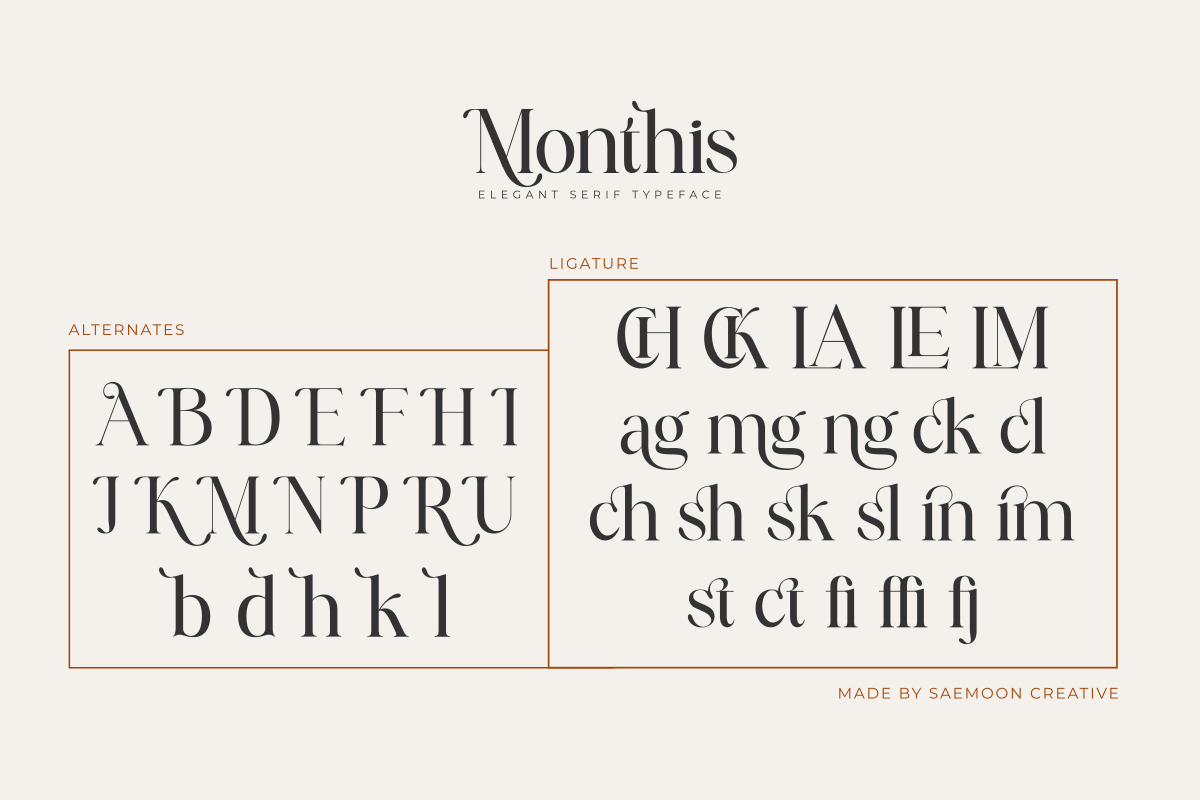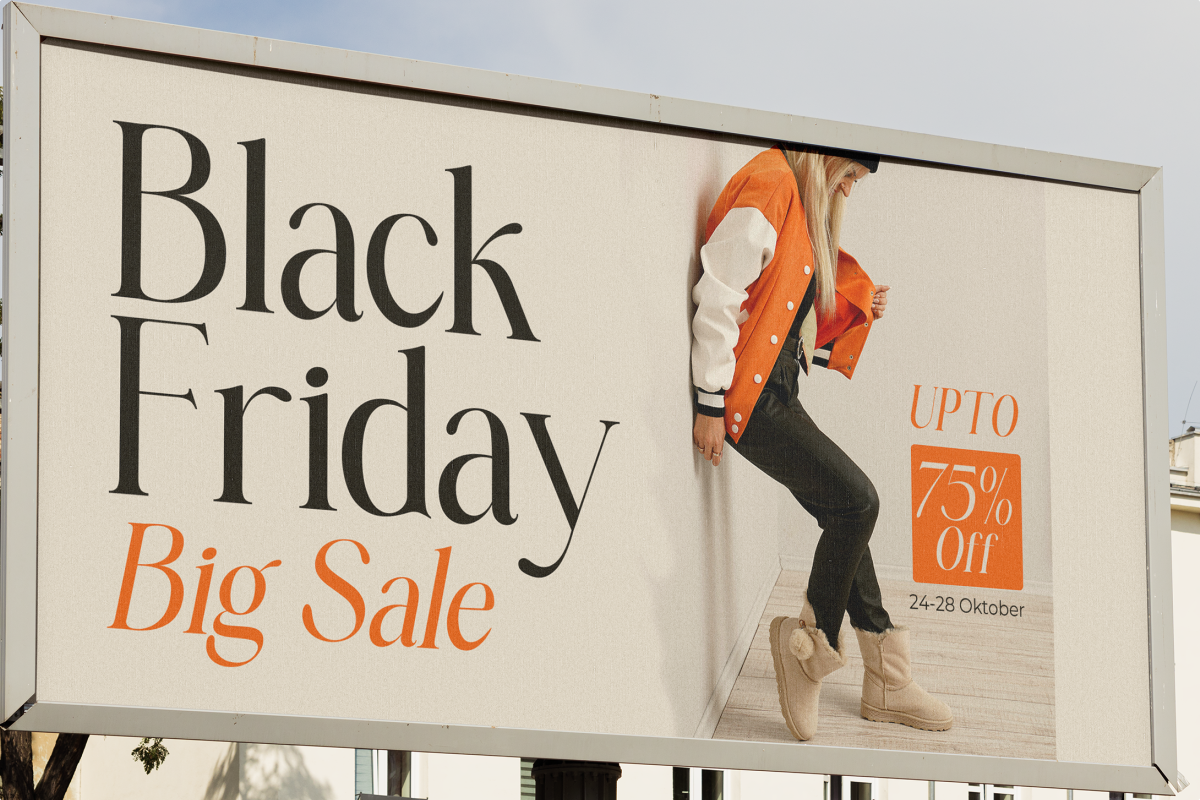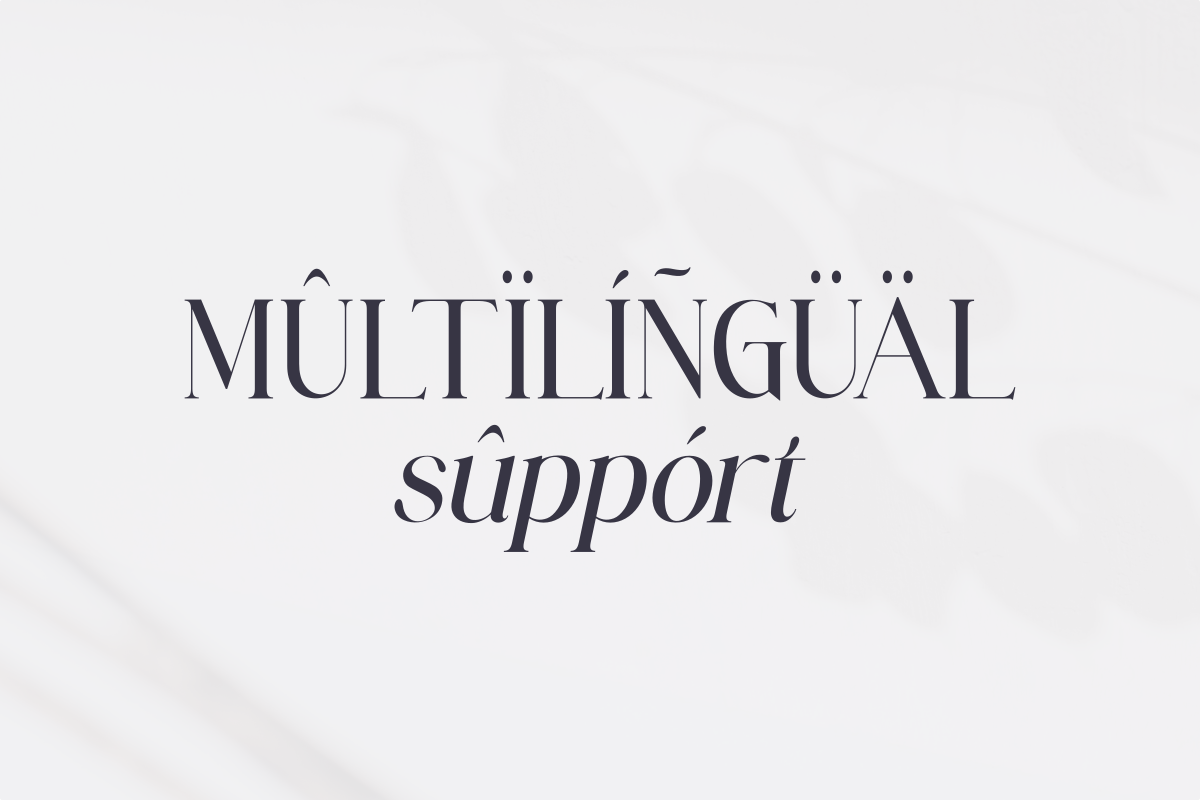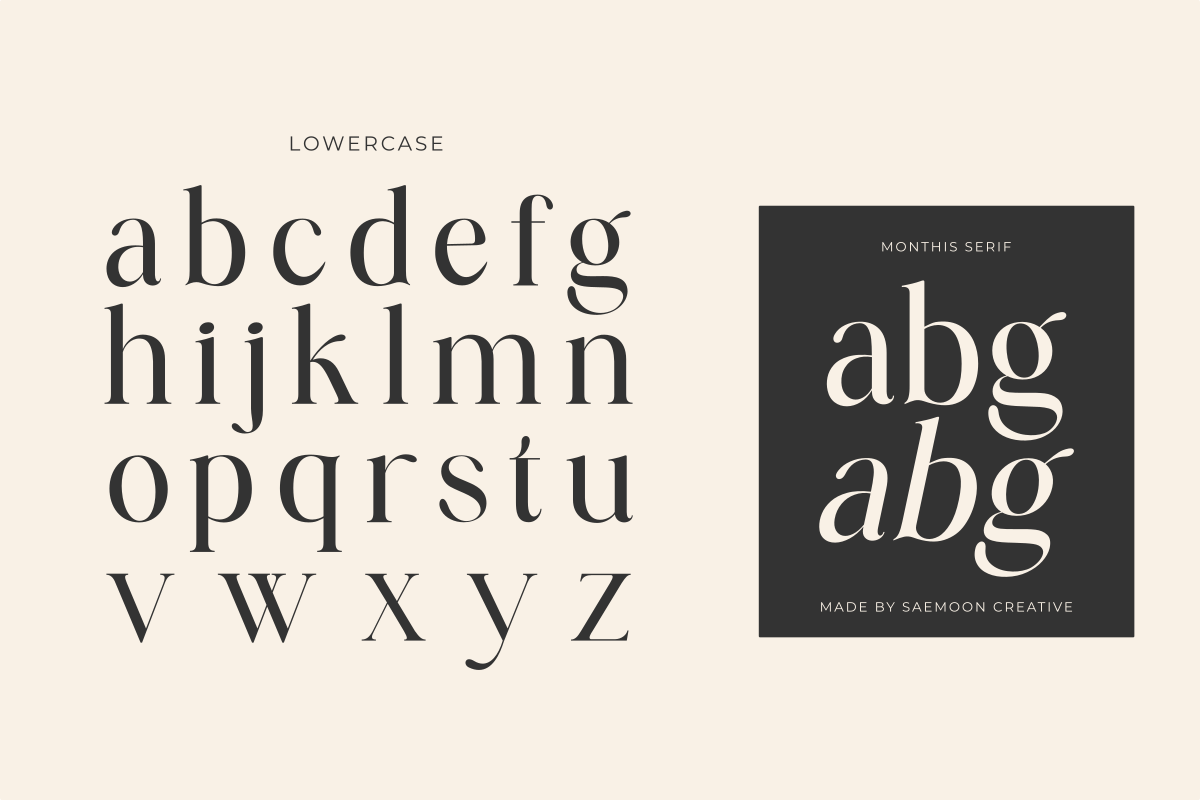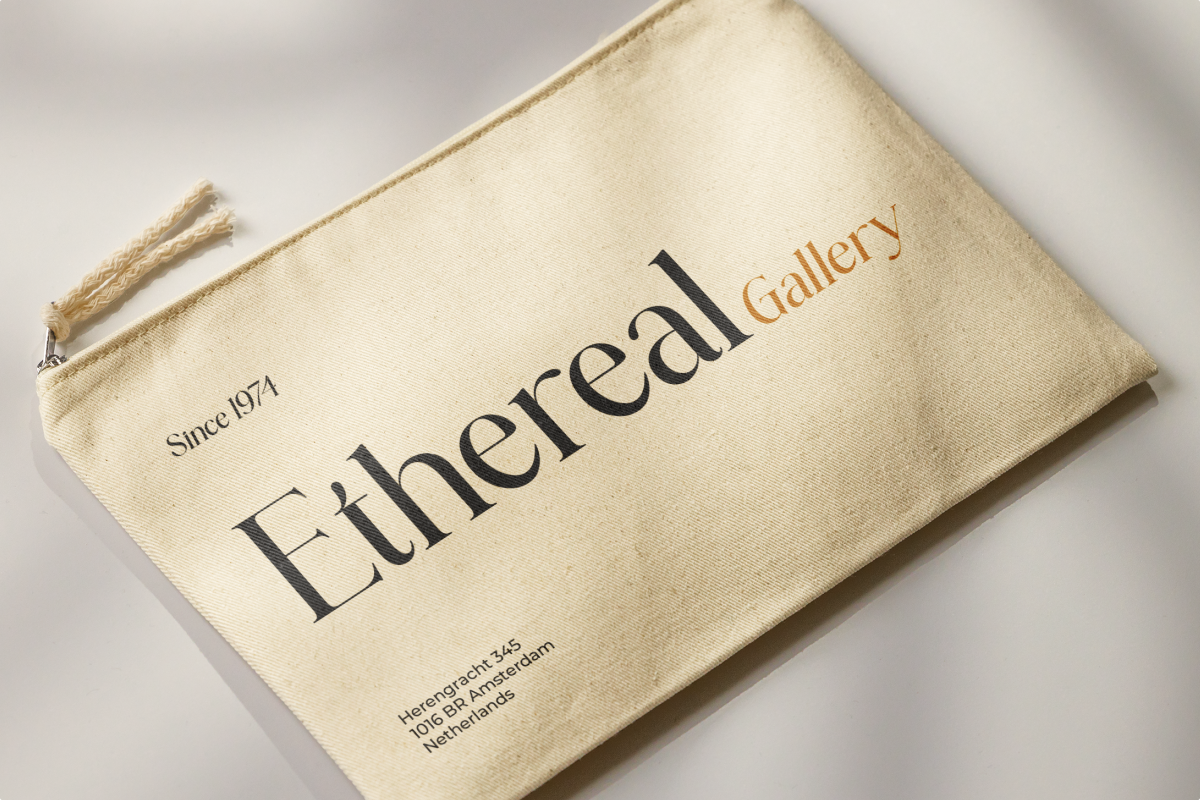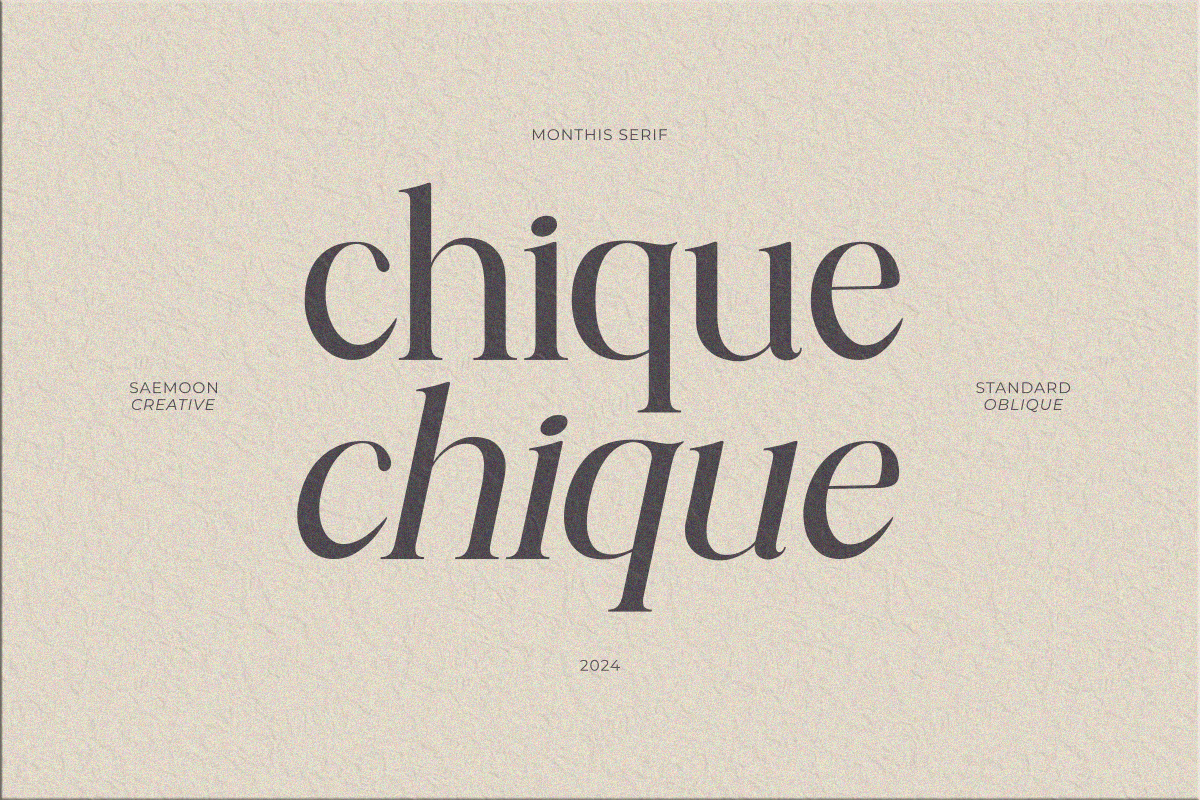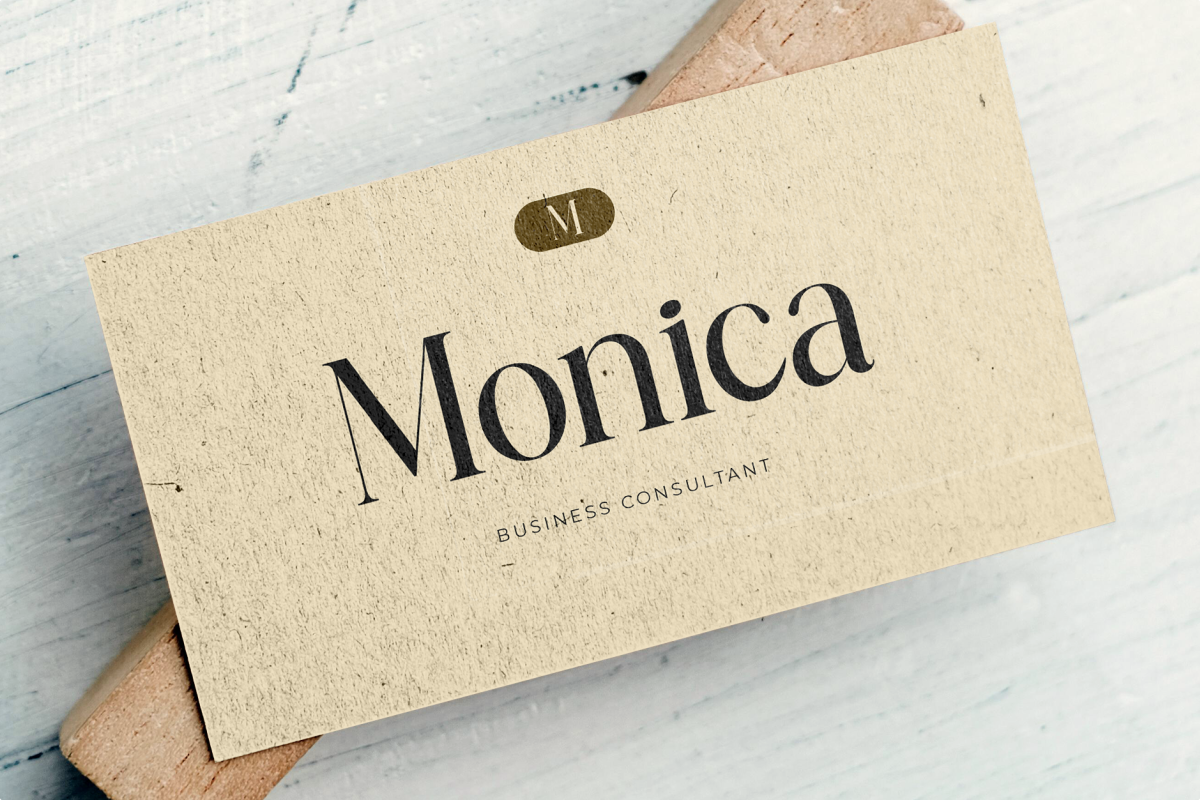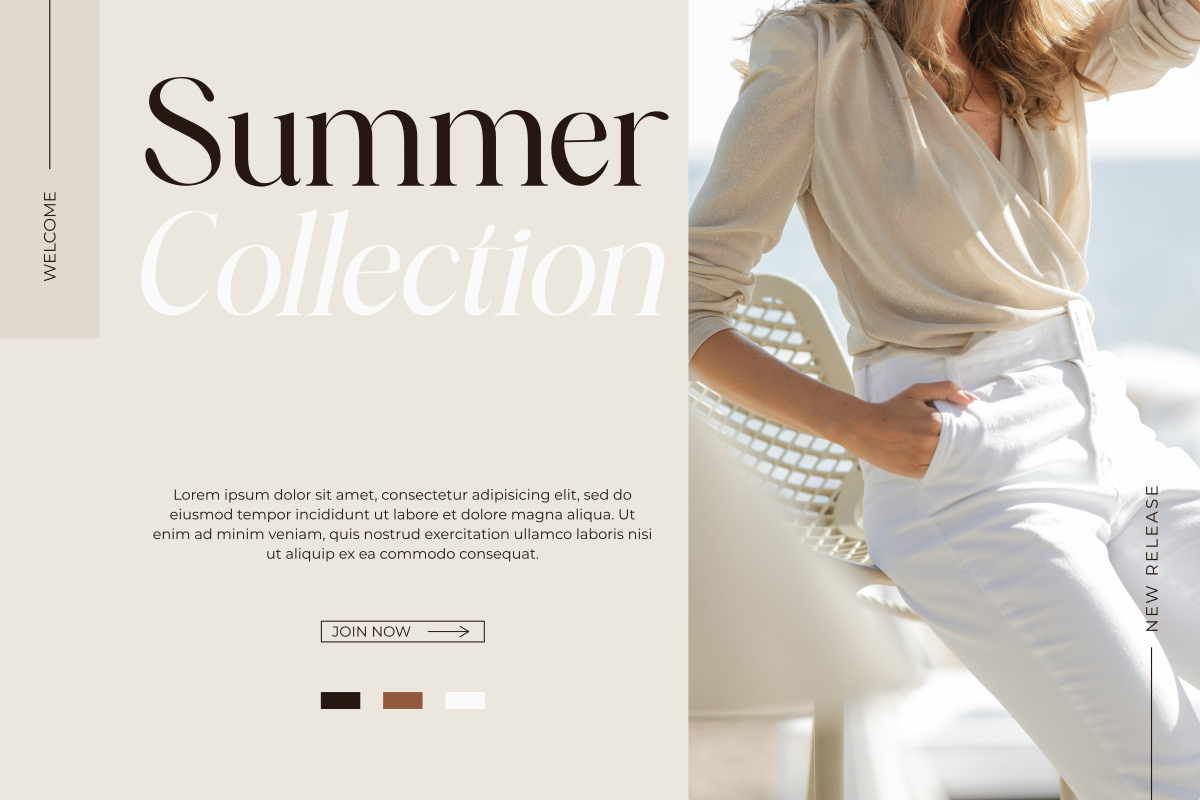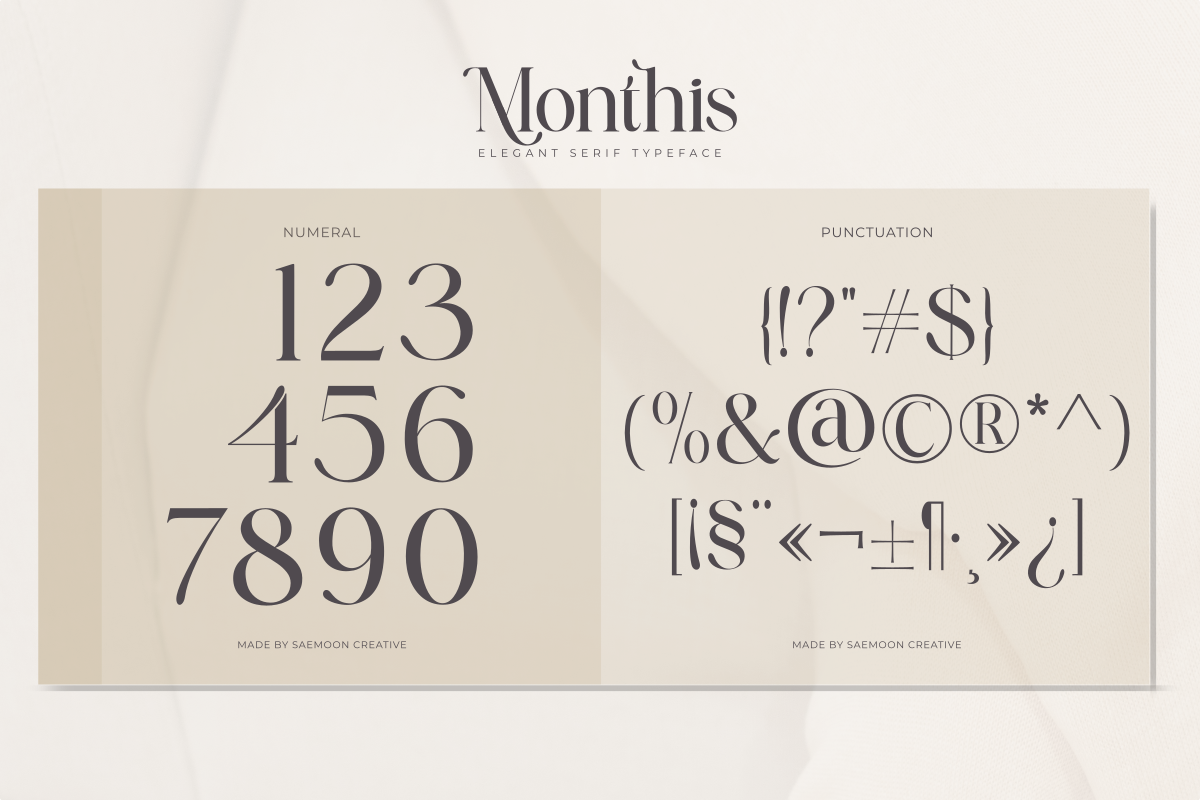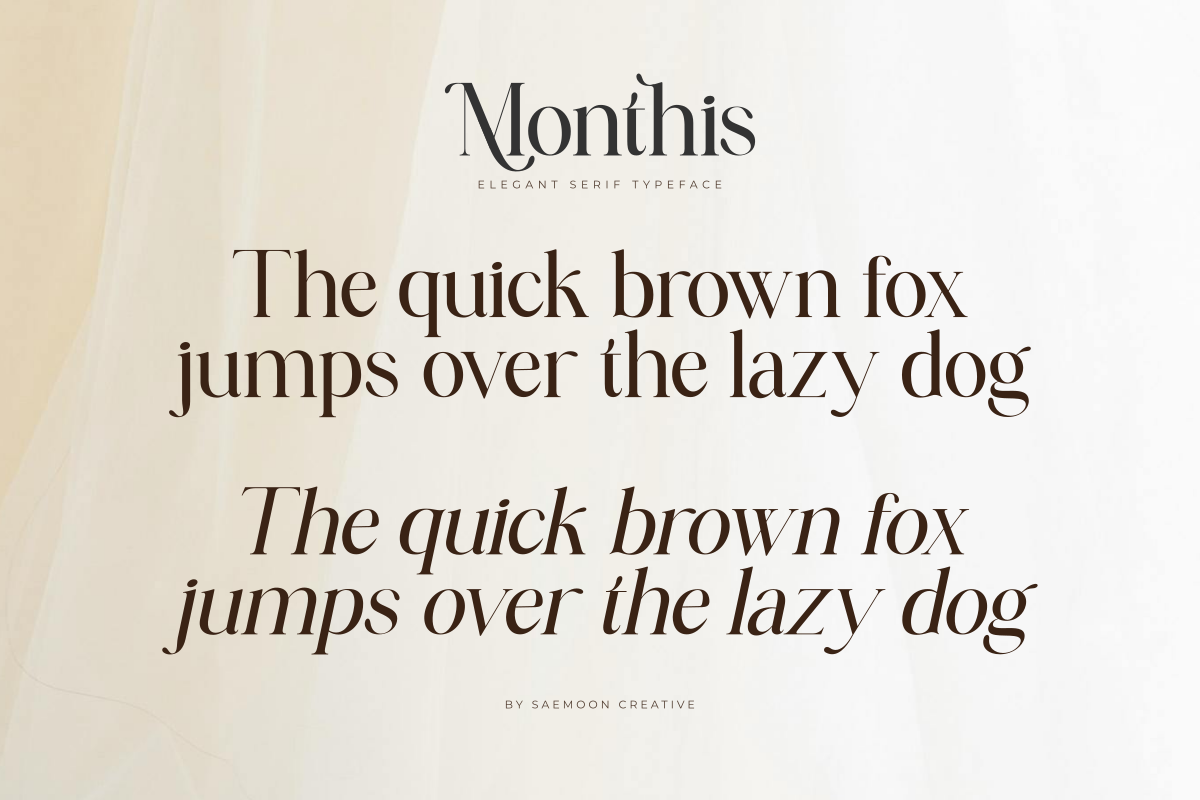
Monthis
Monthis is a premium serif font, perfect for those seeking a blend of simplicity and elegance. With its slim form and clean lines, Monthis conveys a professional and modern feel, making it an ideal choice for product branding, logo design, and marketing materials that require a luxurious and sophisticated touch. The oblique version adds a subtle dynamic accent, bringing a sense of motion without sacrificing elegance. Suitable for editorial design projects, websites, product packaging, and brand identity, Monthis ensures that every design element looks stunning and easy to read, leaving a lasting and powerful impression.